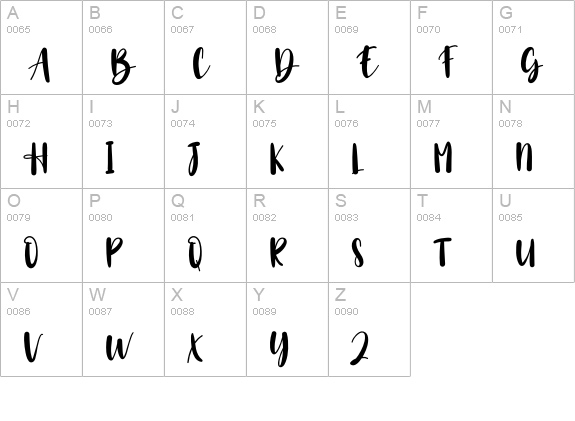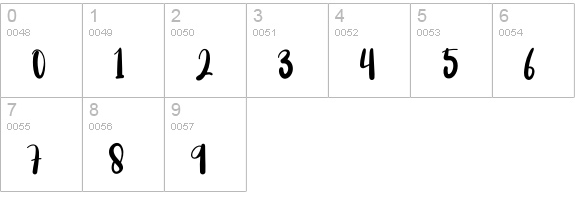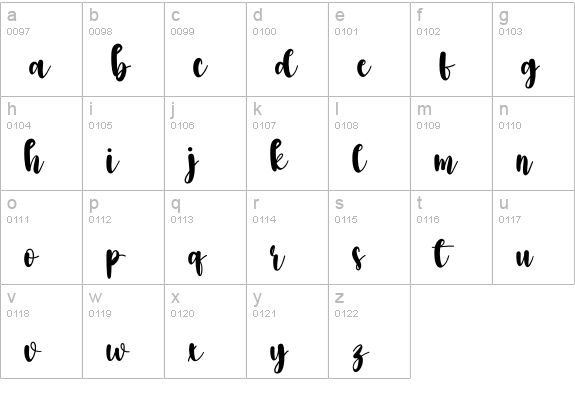
Grey Font Details
Grey is a free for personal use font in the Script > Handwritten category, designed by scratchones. It has been downloaded 21 times and is available for Windows, Mac and Linux.
Grey font is a sleek and modern typeface that exudes sophistication and elegance. With its clean lines and subtle curves, Grey font is perfect for adding a touch of refinement to any design project. Whether you're working on a logo, website, or print material, Grey font is sure to make a statement.